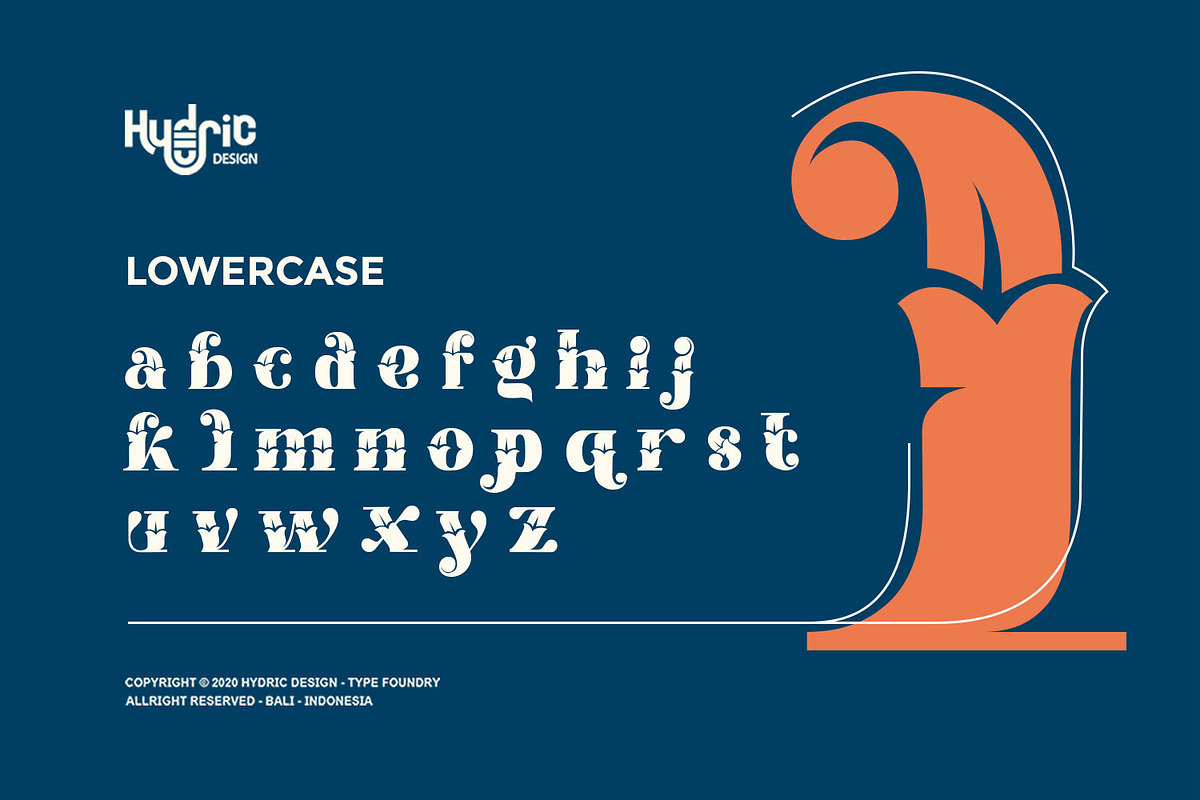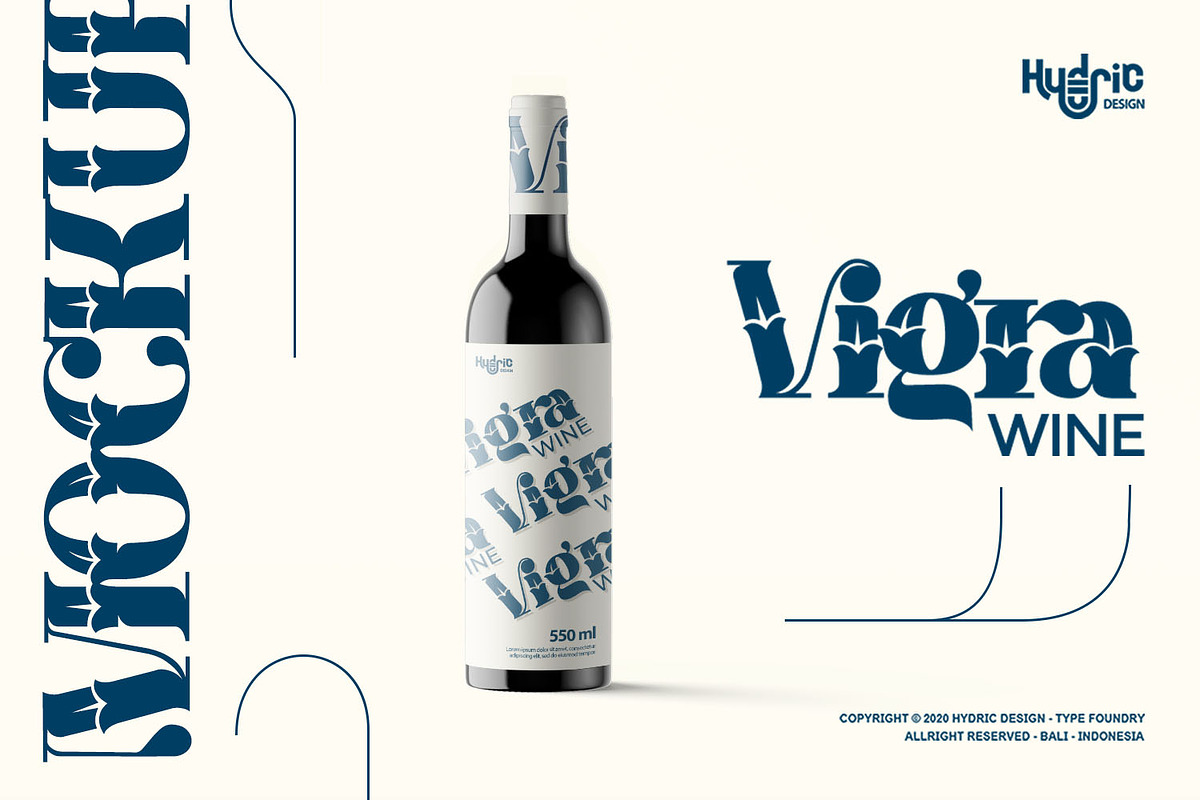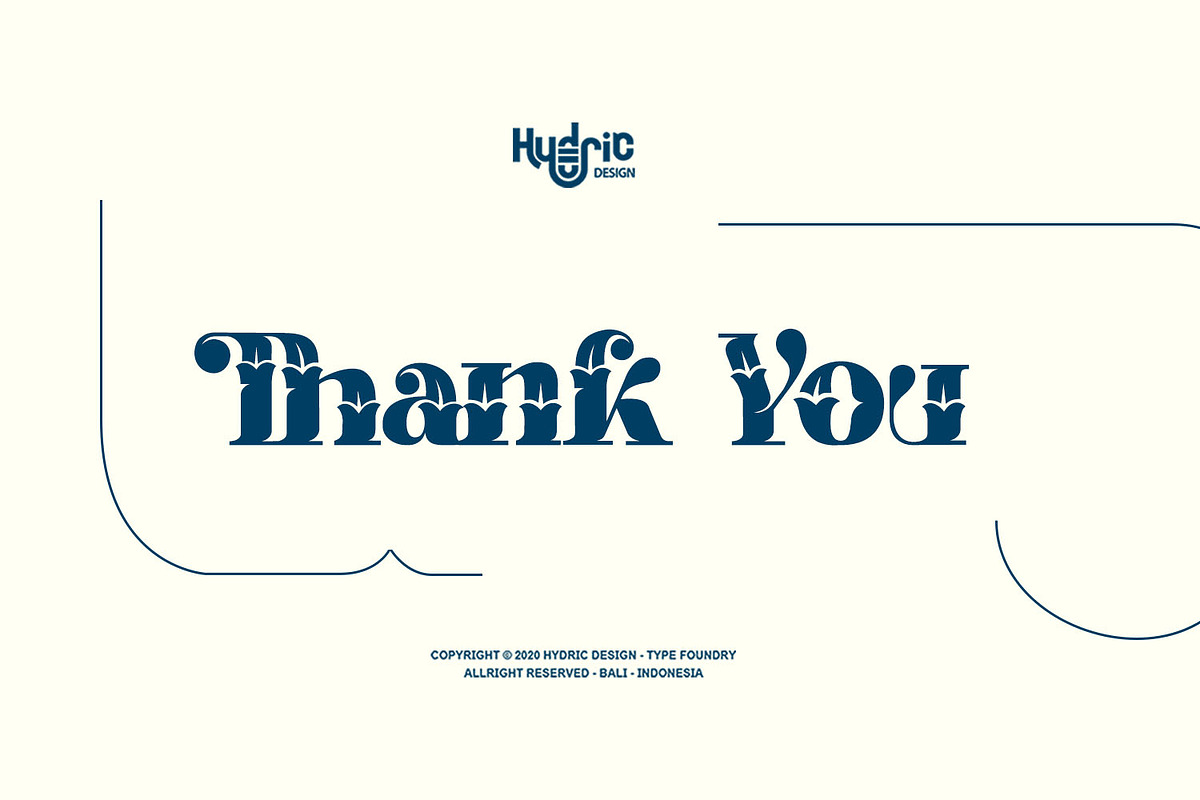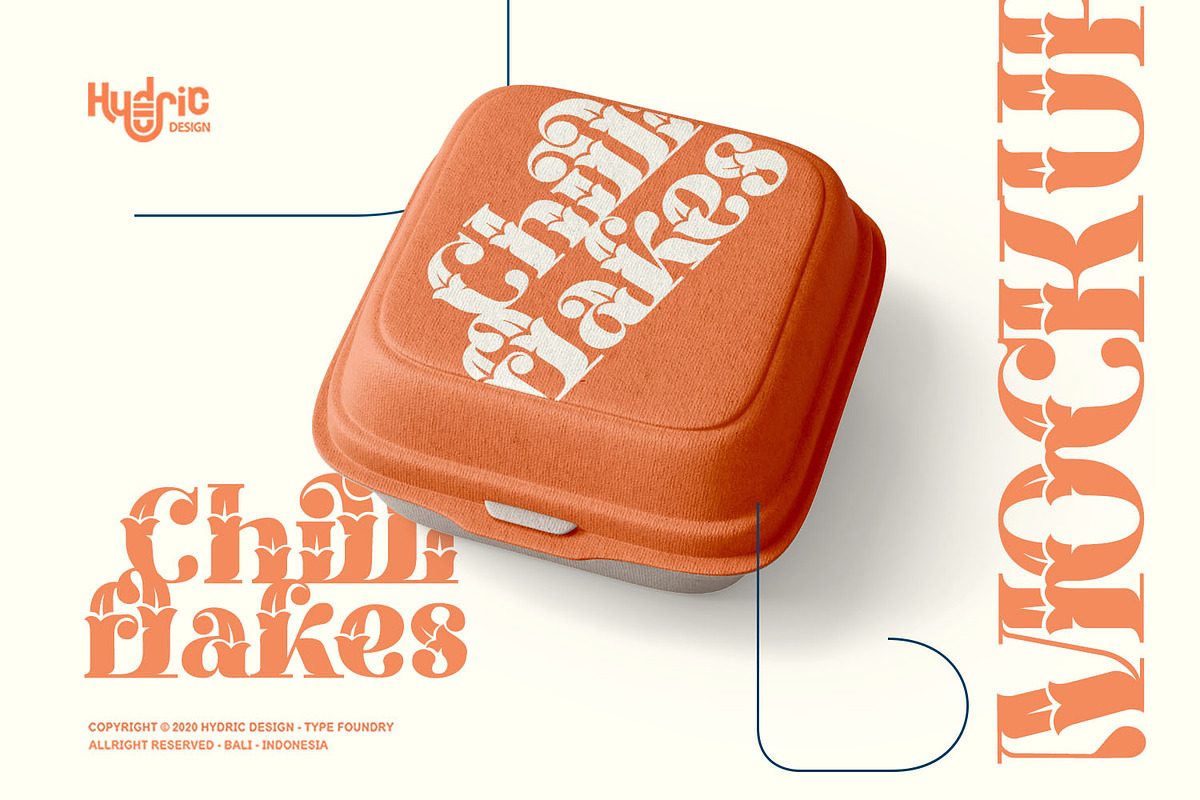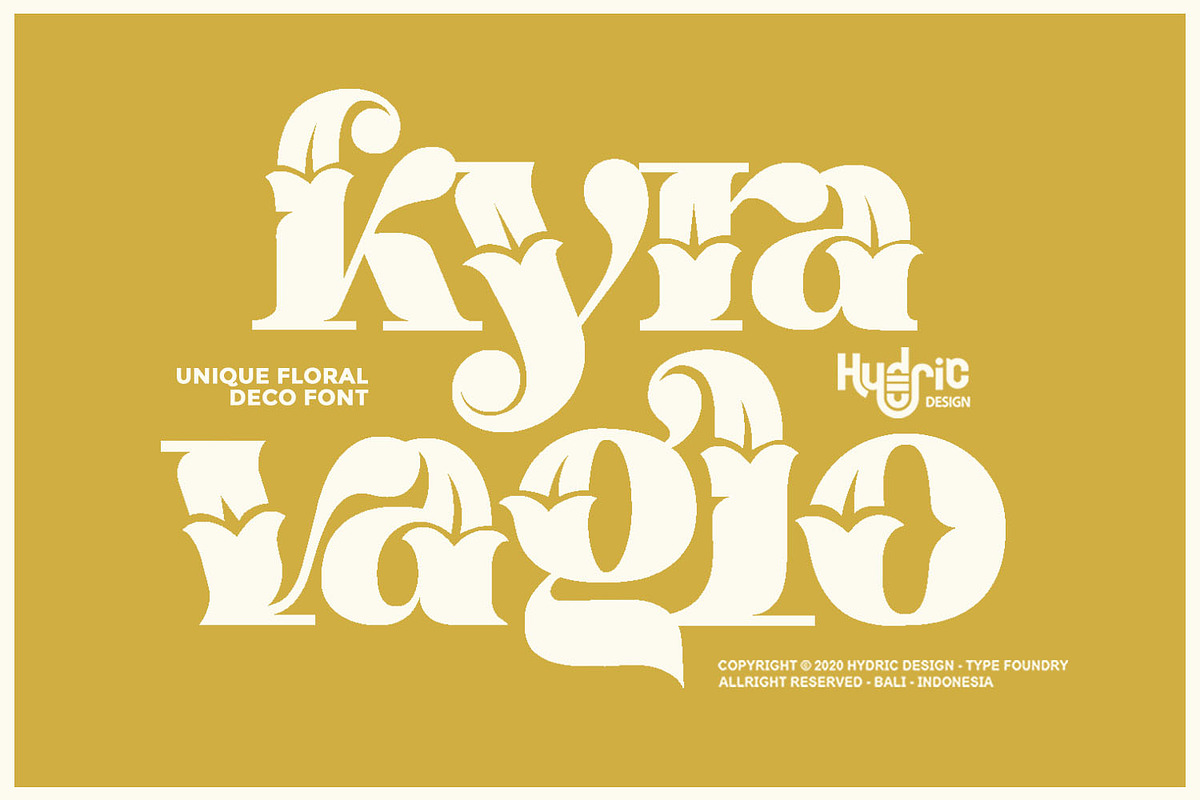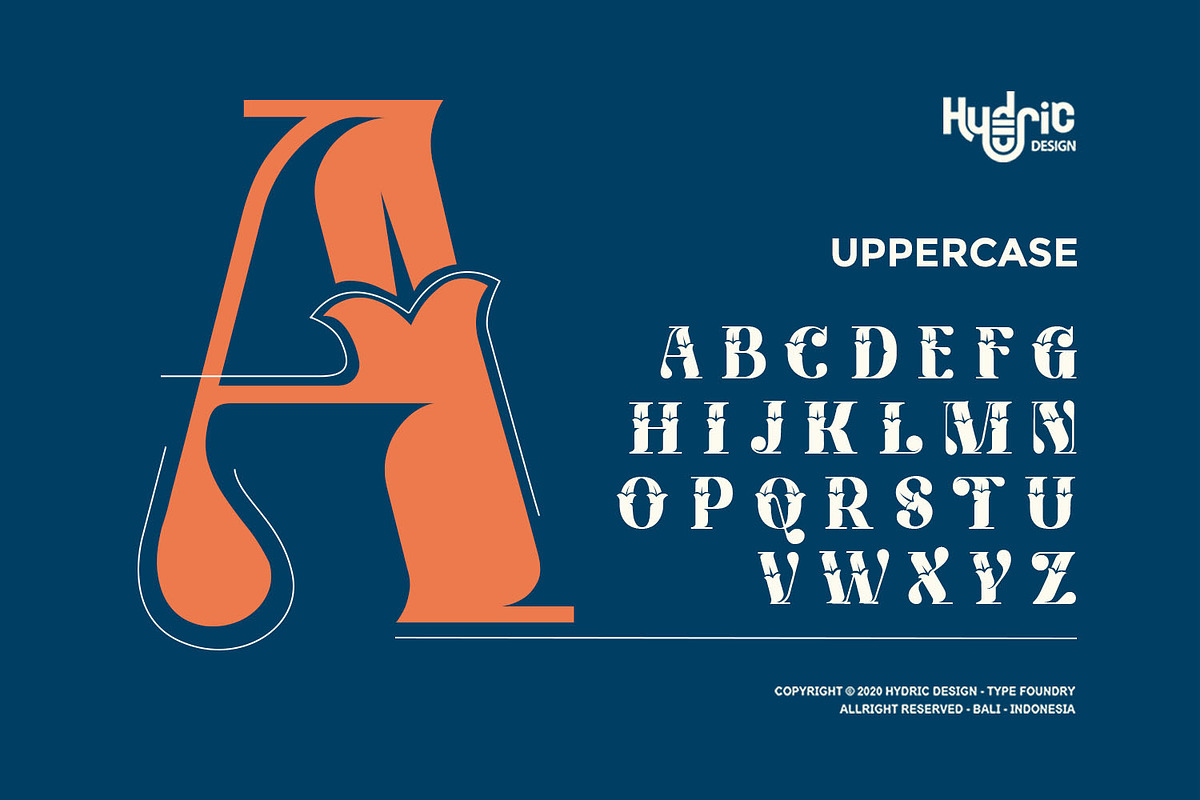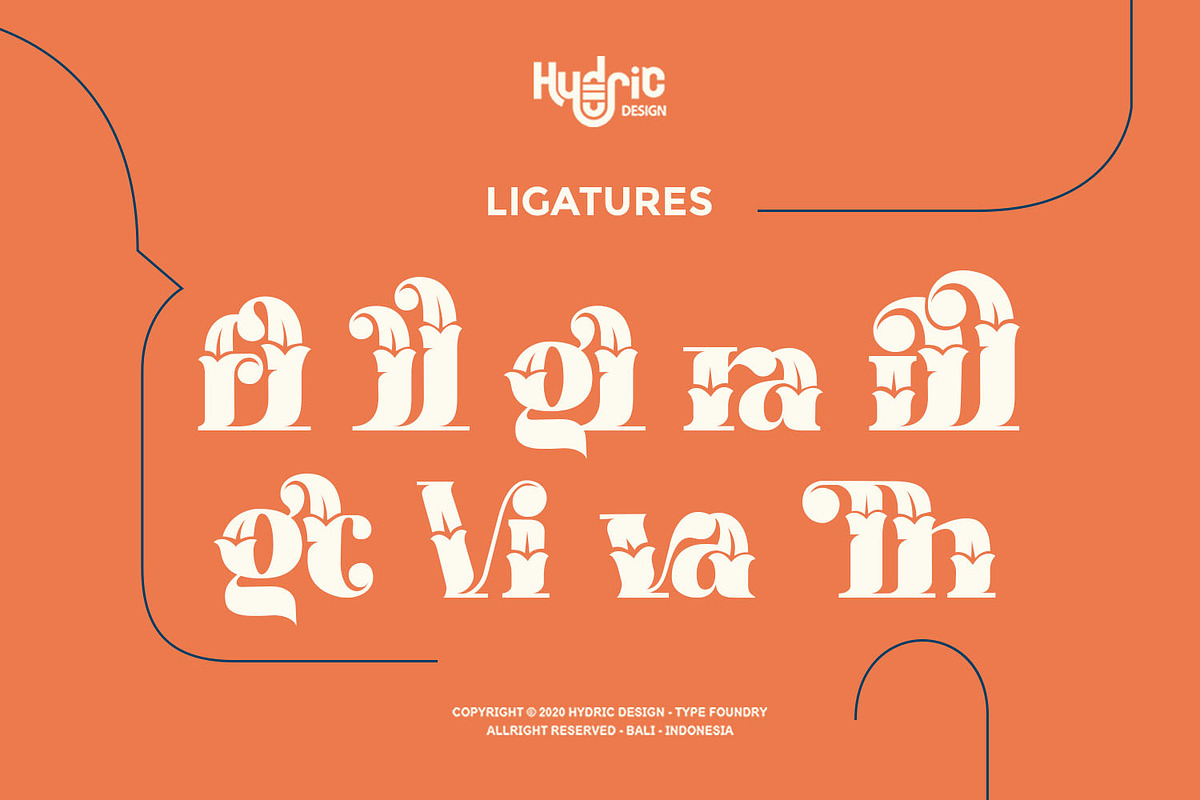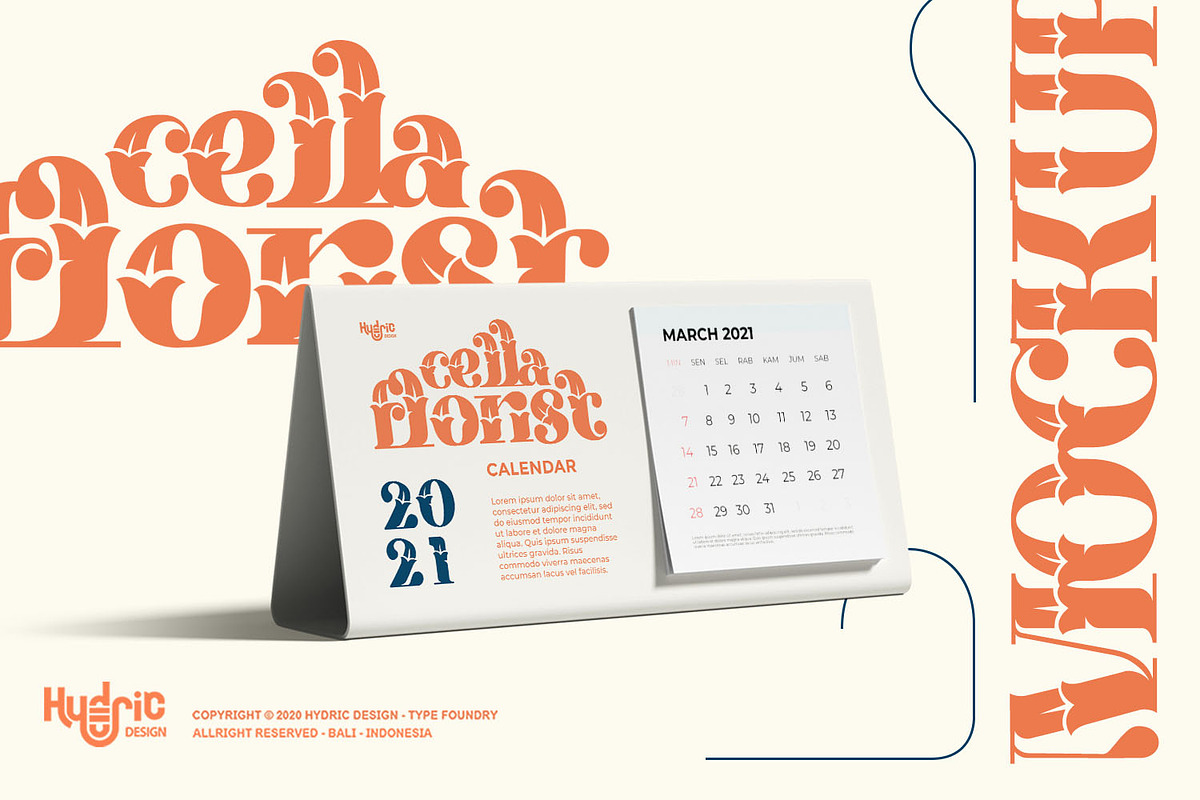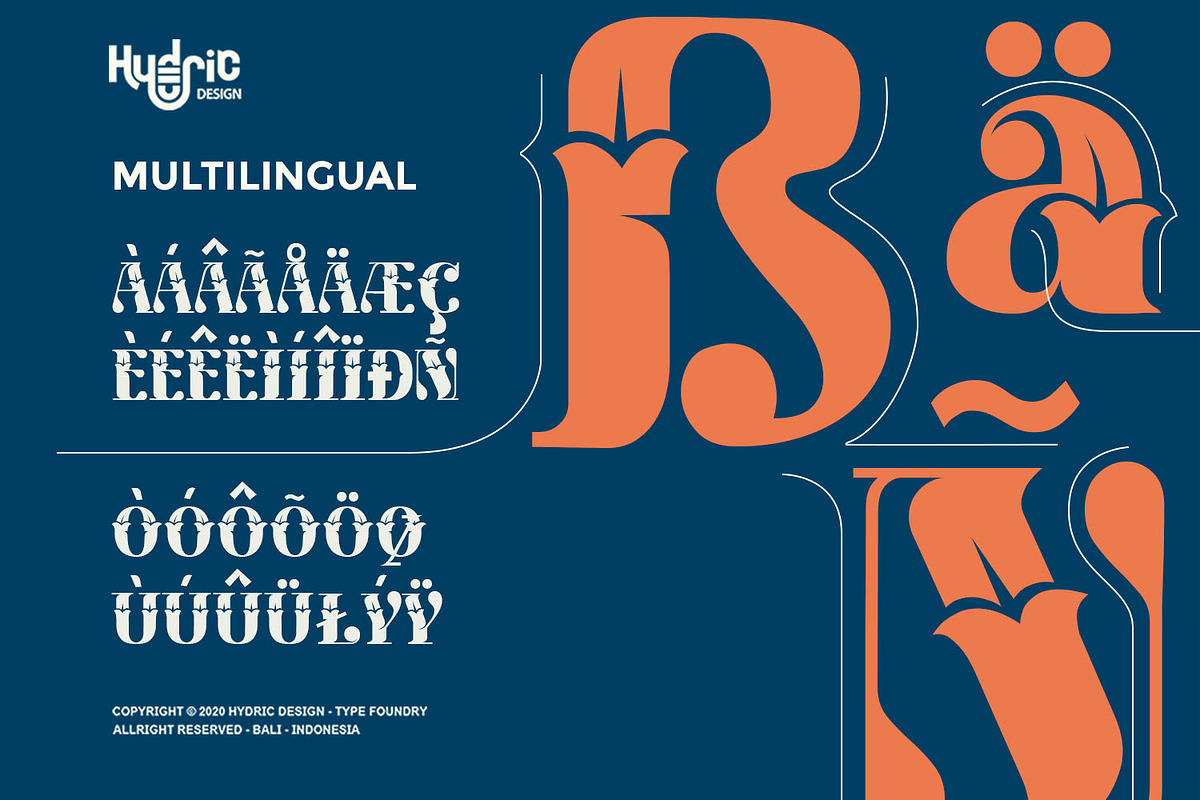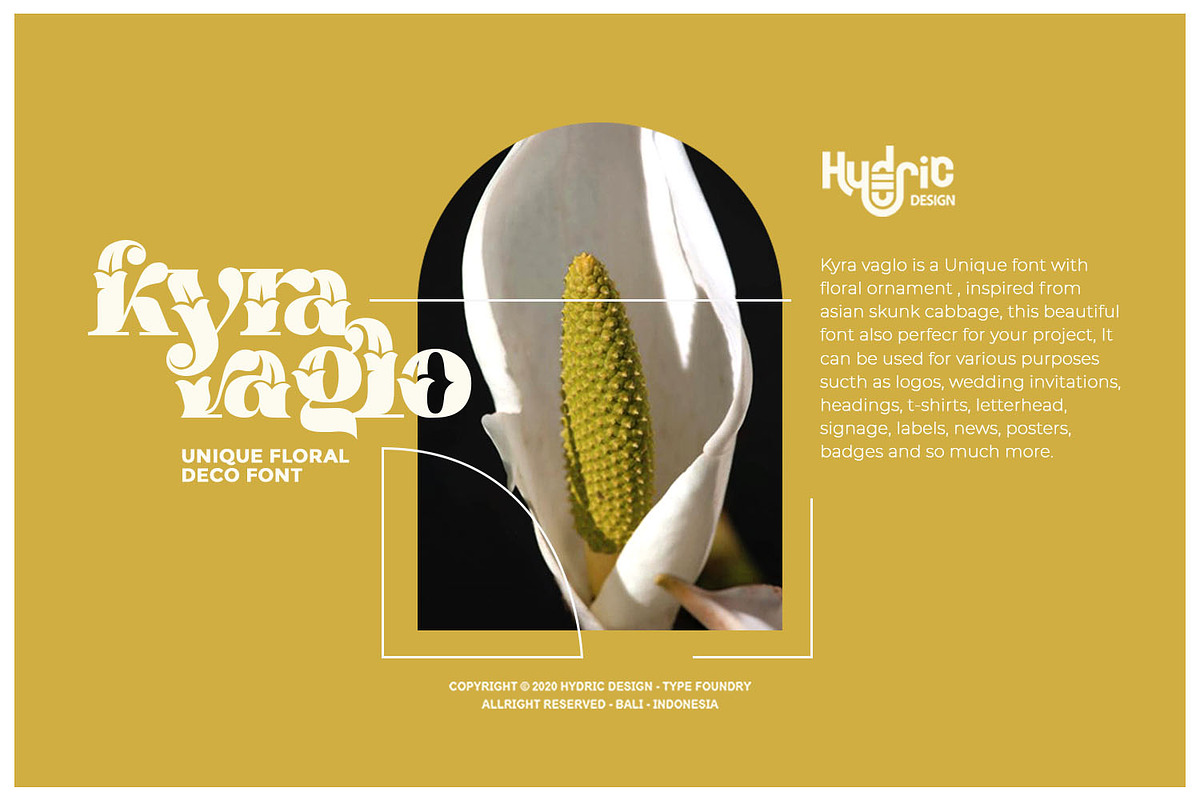
Kyra Vaglo | Floral Display Font
Kyra Vaglo is a Unique font with floral ornament, inspired from Asian Skunk Cabbage, this beautiful font also perfect for your project, It can be used for various purposes such as logos, wedding invitations, headings, t-shirts, letterhead, signage, labels, news, posters, badges and so much more.